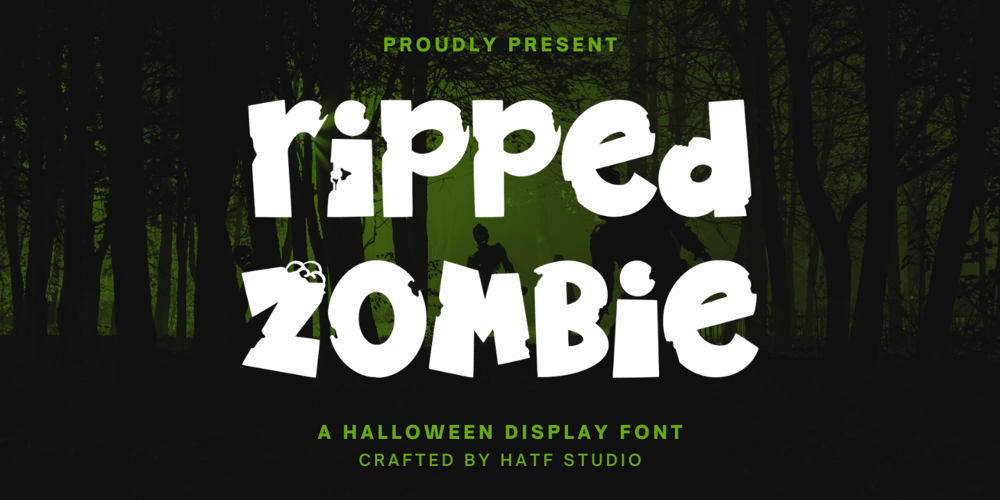
Ripped Zombie
Ripped Zombie font
Ripped Zombie Font Family was designed by Asep Rendi and published by Hatftype. Ripped Zombie contains 1 styles and family package options. Ripped Zombie – Halloween Display Font is a display font that is inspired by gothic and horror style because its shape is very unique and is perfect for any project that you will use with this theme.Ripped Zombie with opentype features such stylistic alternates, stylistic sets & ligatures good for logotype, poster, badge, book cover, tshirt design, packaging and any more.Features :1.Uppercase & Lowercase 2.Multilingual support 3.Number 4.Symbol 5.Punctuation. 6.Extra Dingbat 7.Support in Mac and Windows OS -Support in design application (photoshop, illustrator, and more).There it is. I really hope you enjoy it . Comments & likes are always welcome and accepted.